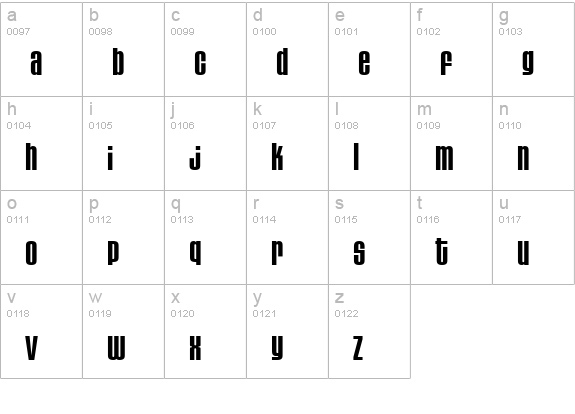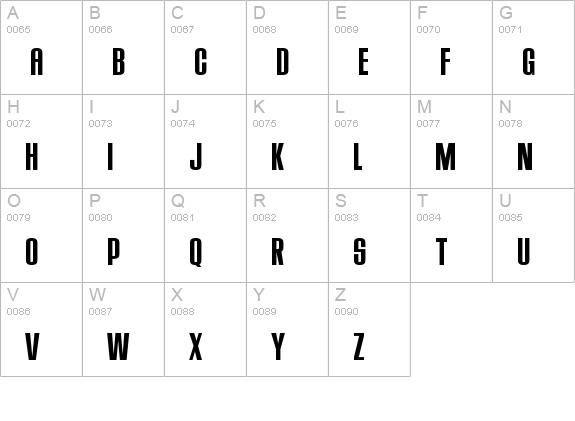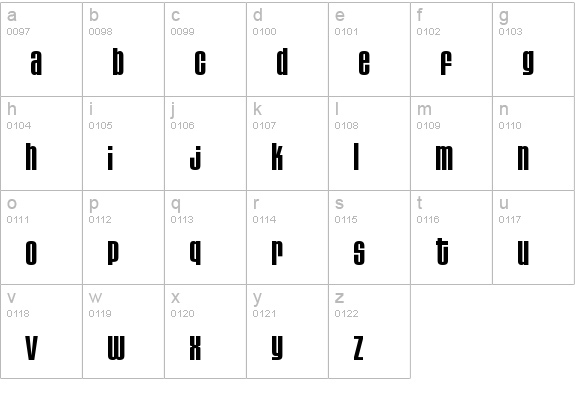
HouseGothic BoldFour is a striking and commanding display font that demands attention with its bold and powerful presence. Its sharp angles and distinct geometric shapes give it a modern and edgy feel, making it perfect for headlines, logos, and other design projects that require a strong typographic statement. With its bold weight and unique design elements, HouseGothic BoldFour stands out from the crowd and adds a touch of sophistication to any project. Whether you're looking to create a bold and impactful design or simply want to make a statement with your typography, this font is sure to impress. Best of all, HouseGothic BoldFour is completely free to download at FontsMarket.com. So why wait? Add this eye-catching font to your collection today and let your creativity shine with its bold and distinctive style.